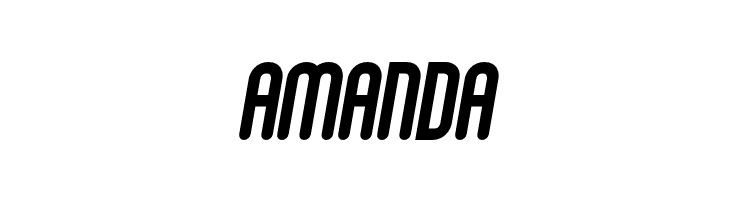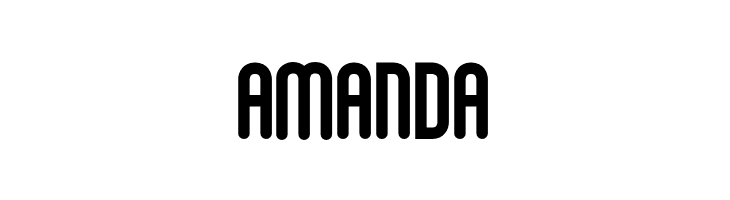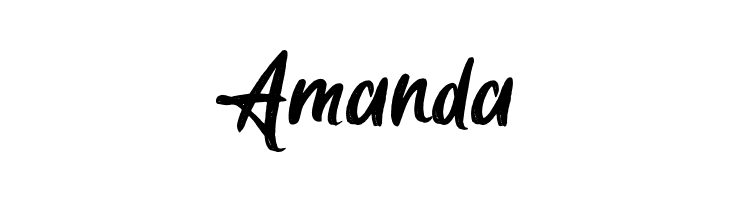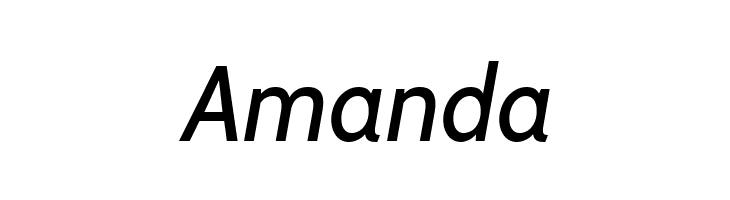
• CabbagetownStoneStd
A bold, stencil-style font with a modern and industrial look.
• Cabe Rawit Regular
A playful, handwritten font with rounded, consistent strokes and a casual feel.
• Cabeen Crappy
• Cabello Script
A modern script font with flowing lines and rounded edges.
• Caberne
A bold, decorative font with a vintage, western-inspired style.
• Cabin Bold
A bold, modern sans-serif font with clean lines and strong readability.
• Cabin Bold Italic
• Cabin Italic
A modern, italic sans-serif font with clean lines and excellent readability.
• Cabin Medium
A modern, clean sans-serif typeface with uniform stroke widths and excellent readability.
• Cabin Medium Italic
A modern sans-serif font with an italic slant, offering clarity and style.
• Cabin Regular
A clean, modern sans-serif typeface with consistent stroke width and excellent readability.
• Cabin SemiBold
A modern, semi-bold sans-serif typeface with clean lines and balanced proportions.
• Cabin SemiBold Italic
A modern, clean, and slightly italic typeface with excellent readability.
• Cabin VF Beta Italic
A modern, italic sans-serif font with a clean and dynamic appearance.
• Cabinet of the Outlander
A bold, expressive script font with a dynamic, hand-drawn style.
• Cable
A bold, geometric font with an industrial, cable-like design.
• Cable Guy
• Cablegram Regular
A bold, geometric font with a three-dimensional, layered effect.
• CABNDWebBold
A bold, modern sans-serif font with clean lines and geometric shapes.
• CABoiledBeef-Rg
A bold, distressed font with a grunge, textured style.
• Cabold Comic
A bold, playful font with thick strokes and rounded edges, ideal for comic-style designs.
• Cabold Comic
A bold, cartoonish font with thick, rounded letters and a playful style.